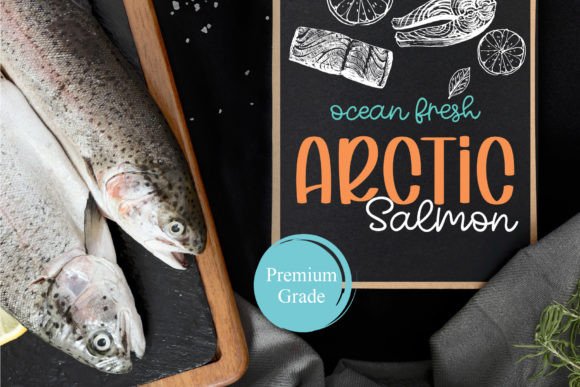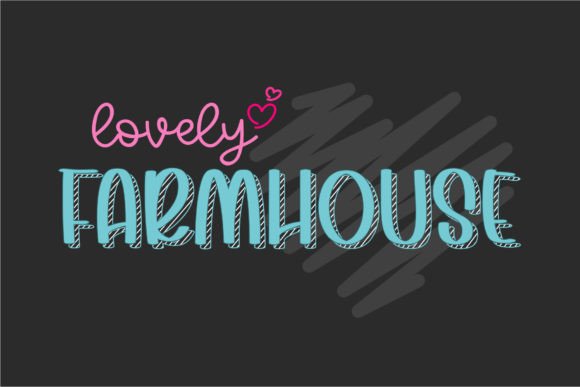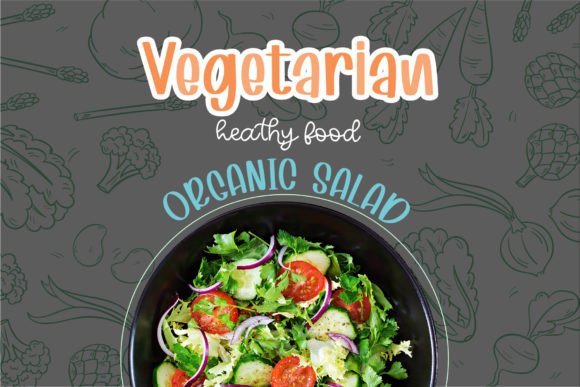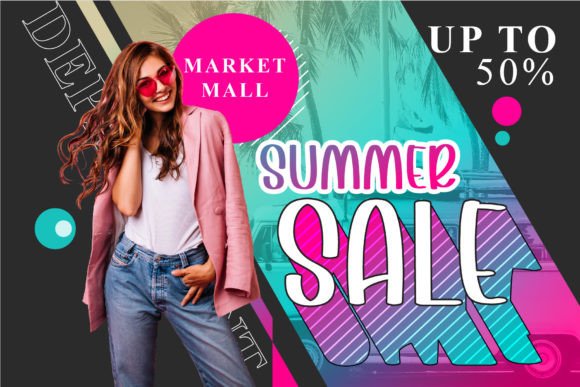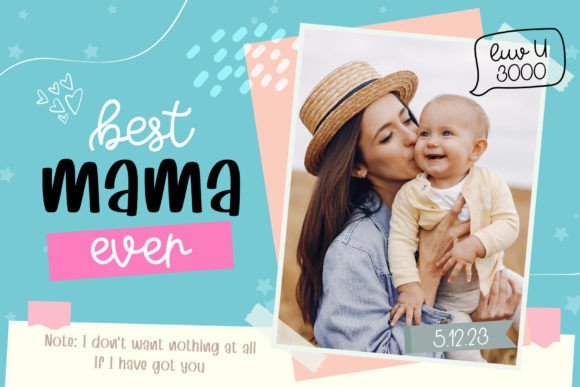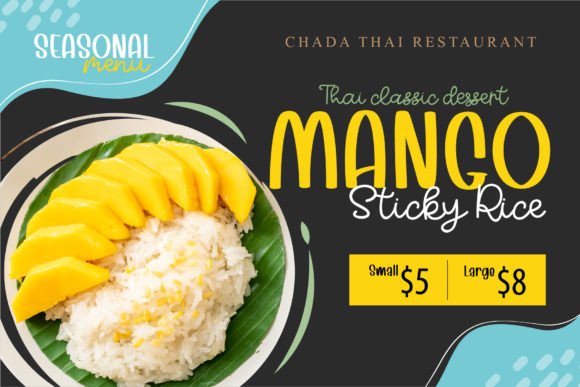
The Perfect Match for Your Next Design Project
Have you ever stared at a blank canvas, struggling to find the perfect font to bring your creative vision to life? We’ve all been there. But what if I told you that there’s a font that can make your design dreams a reality? Introducing the California Market Font, a sweet and friendly handwritten font that’s sure to capture the essence of your unique style.
With its natural and unique style, the California Market Font is the perfect addition to any design project. Whether you’re creating a brand identity, a wedding invitation, or a social media post, this font is sure to add a touch of personality and warmth. As a designer, you know how valuable it is to have a versatile font that can adapt to any situation, and that’s exactly what the California Market Font offers.
California Market Font Features
- Unique Characteristics: The California Market Font features a unique blend of modern and vintage elements, with subtle flair and texture, making it perfect for designs that require a touch of sophistication and elegance.
Designer Review: California Market Font
Overall, I think California Market Font is a great addition to any designer’s toolkit. The font is a modern take on the classic market sign aesthetic, perfect for branding and marketing materials that evoke a sense of laid-back California cool.
The font’s ✨ strong character set is a major plus, with a wide range of glyphs and ligatures that make it suitable for use in a variety of contexts. I particularly appreciate the font’s ✨ friendly, approachable feel, which makes it a great choice for logos and branding that need to convey a sense of approachability and trust.
- ⚠️ Limited language support: While the font includes a decent selection of glyphs, it’s not comprehensive, and may not be suitable for use in languages that require a wide range of characters.
- ⚠️ Not ideal for small text: The font’s bold, blocky style can make it difficult to read in small sizes, so it’s best used in larger contexts.
- ⚠️ May not be suitable for formal contexts: While the font is great for casual branding and marketing, it may not be the best choice for more formal contexts, such as academic or corporate materials.
Overall, I think California Market Font is a great choice for designers who need a modern, laid-back font that’s perfect for branding and marketing materials. While it has some limitations, I think it’s a great addition to any designer’s toolkit.
The California Market Font is ideal for creating modern, rustic, or vintage designs. It’s commonly used for:
– Food and beverage branding
– Home decor and furniture designs
– Outdoor and adventure-themed designs
– Rustic or vintage-inspired designs
For the best results, use the California Market Font in combination with other modern, rustic, or vintage-inspired elements, such as distressed textures or watercolor effects. Experiment with different font sizes, colors, and styles to create a unique and eye-catching design.